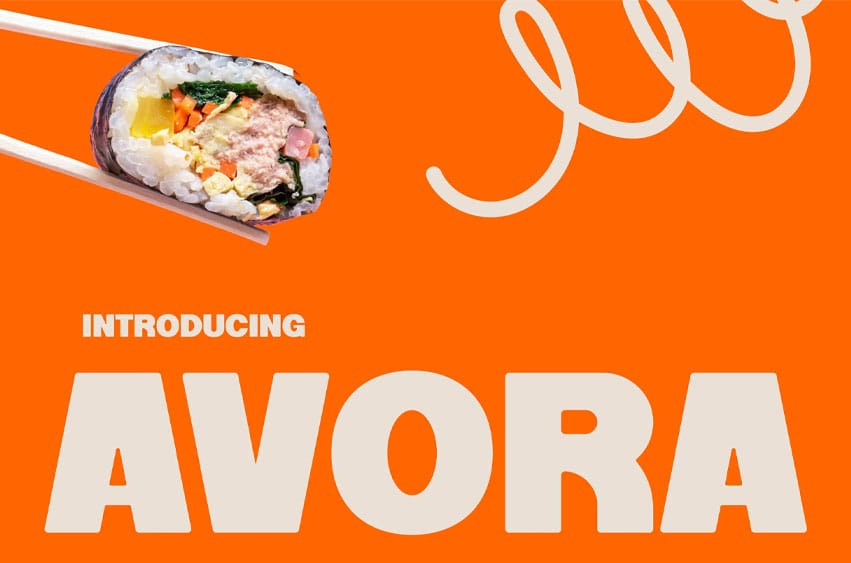
Avora Font is a Modern Font designed for modern food branding, packaging, and promotional design. Featuring strong proportions, clean construction, and low-contrast letterforms, it delivers a confident visual presence that immediately captures attention.
Its structured shapes create excellent readability in large sizes while maintaining a modern commercial aesthetic. Inspired by contemporary restaurant branding and retail packaging, Avora helps designers build professional and memorable visual identities across print and digital platforms.
Built for brands that need strong visual impact, Avora performs exceptionally well in packaging, restaurant campaigns, posters, social media promotions, and product launches. Its bold geometric character creates attention-grabbing headlines while maintaining a clean and approachable appearance. Whether you’re designing food packaging, retail branding, menu systems, or marketing materials, Avora provides the visual confidence needed to help products stand out in competitive markets.